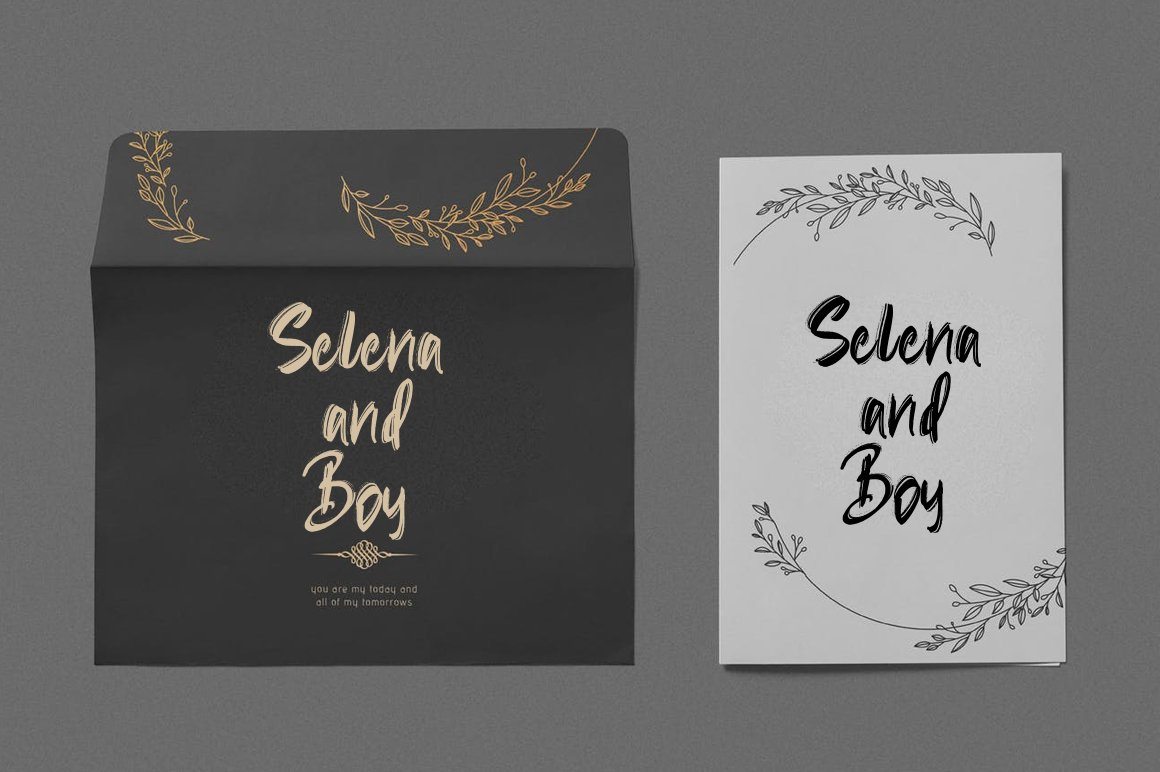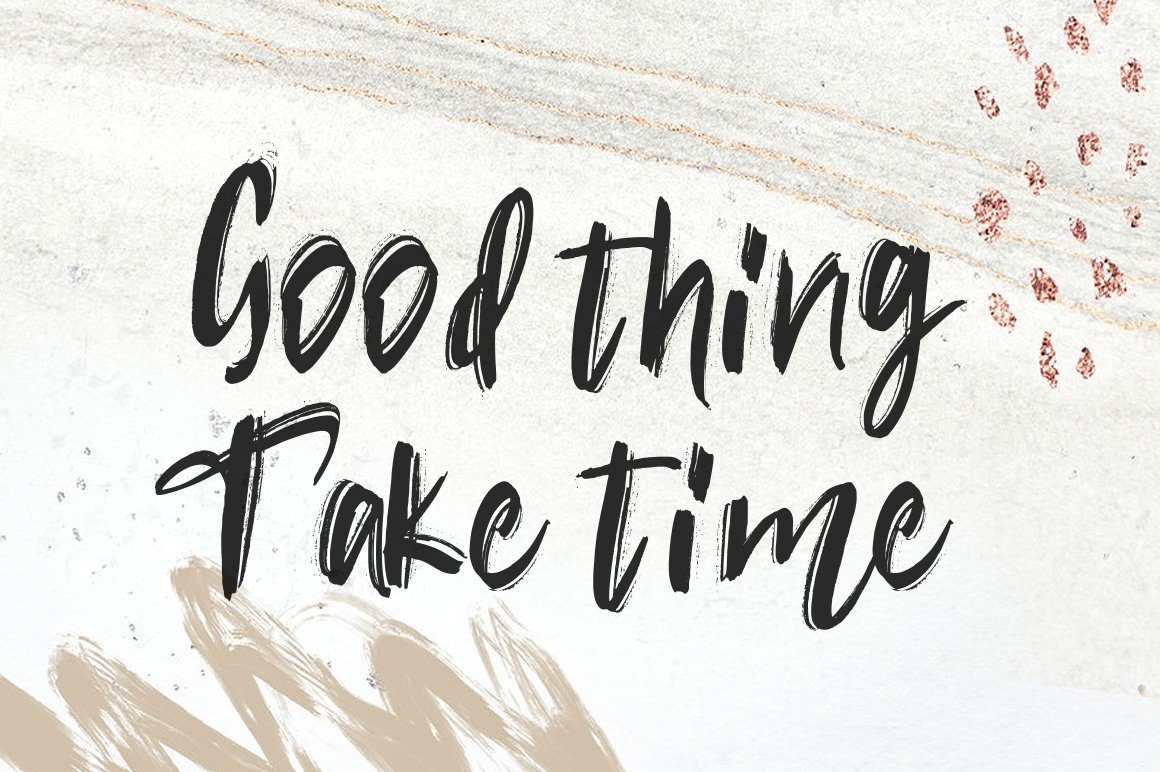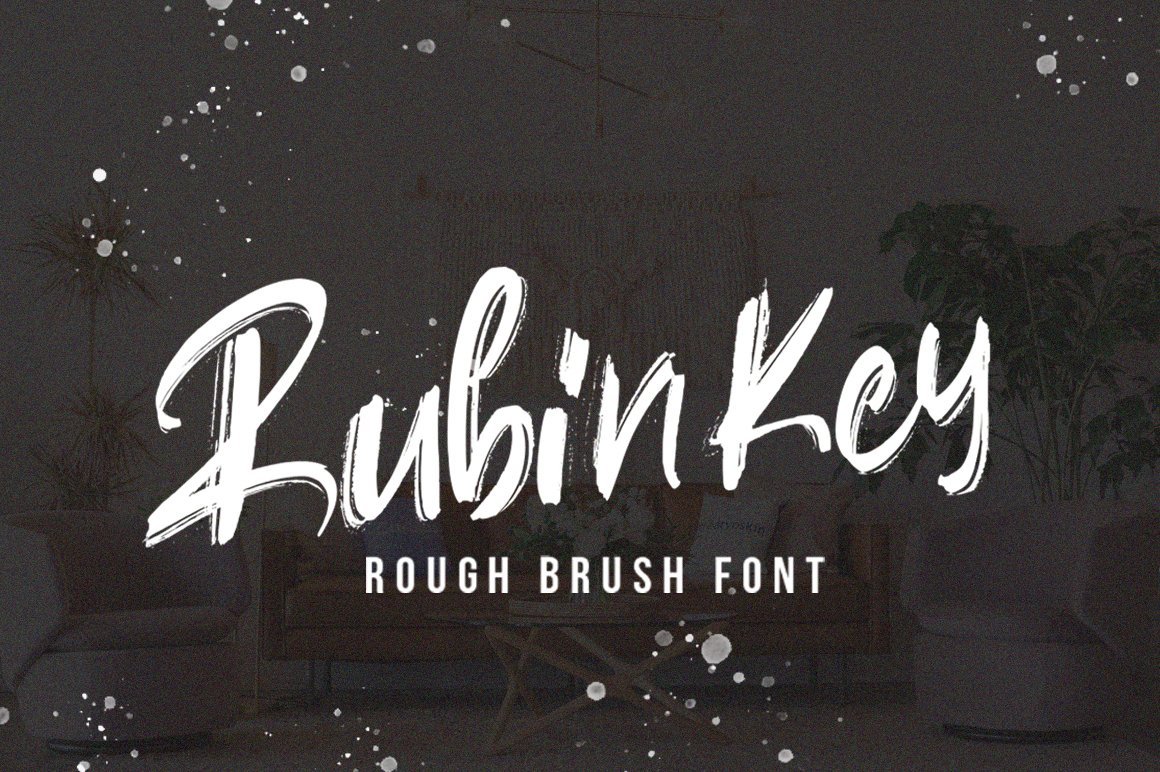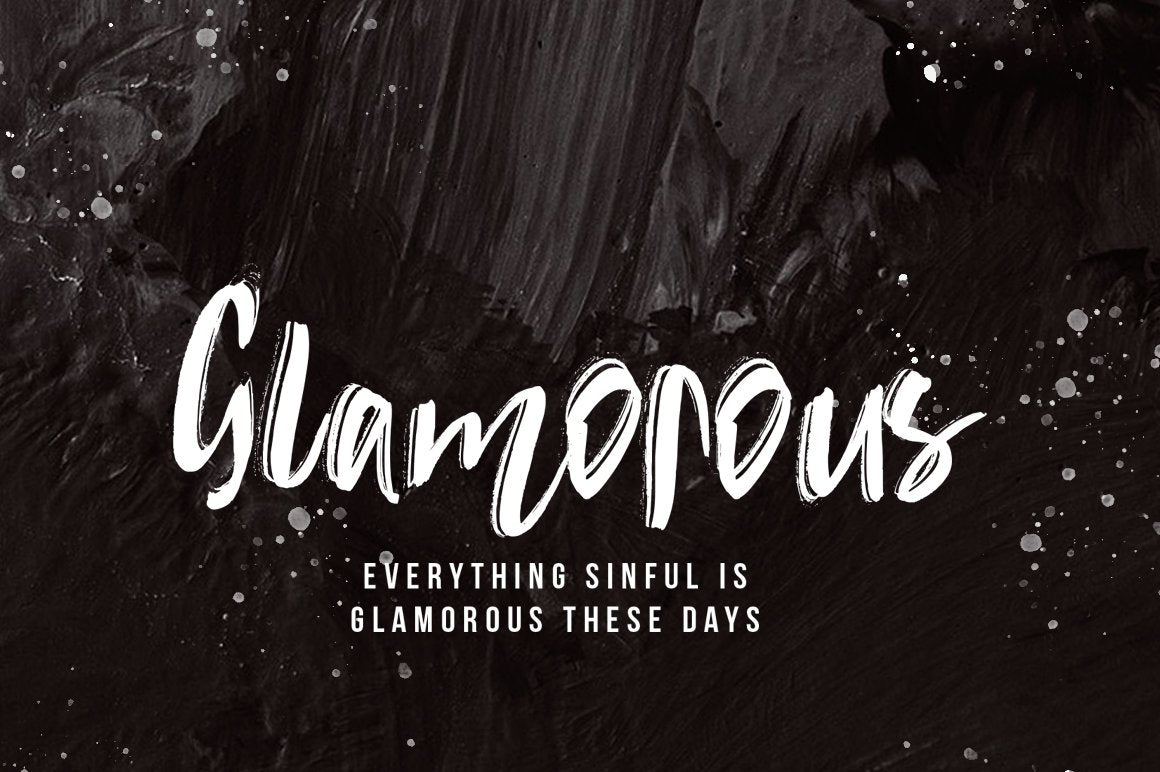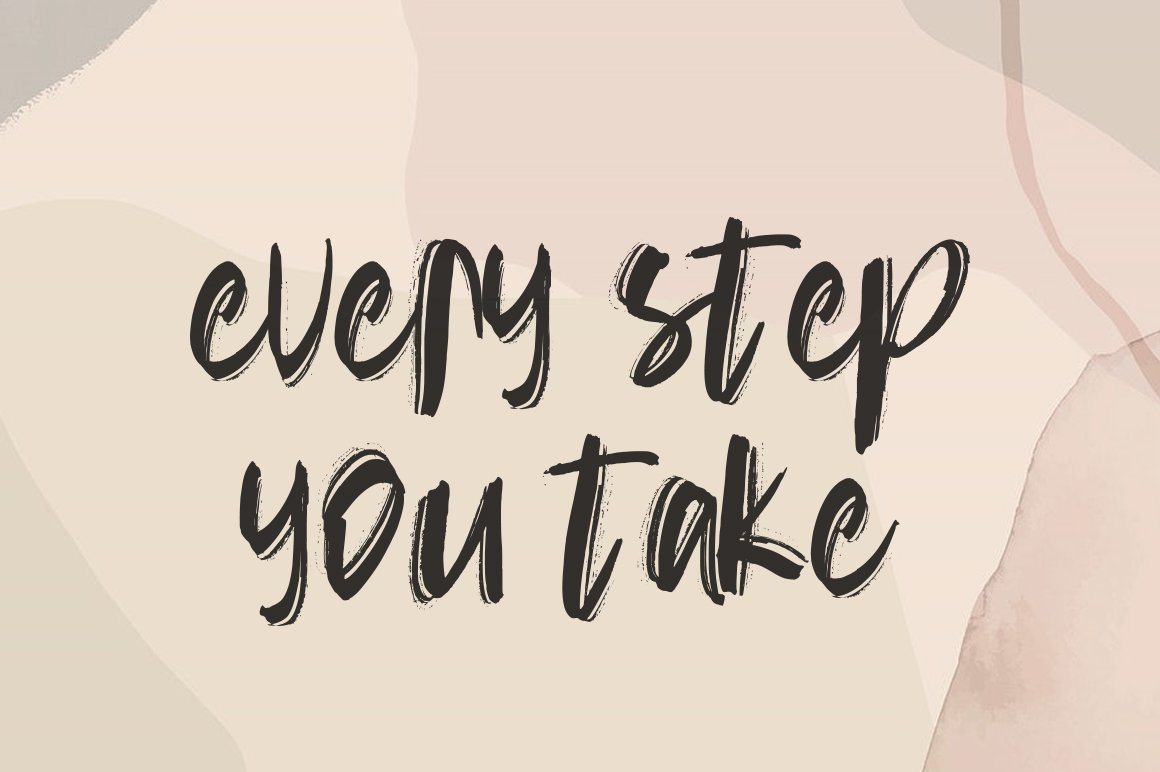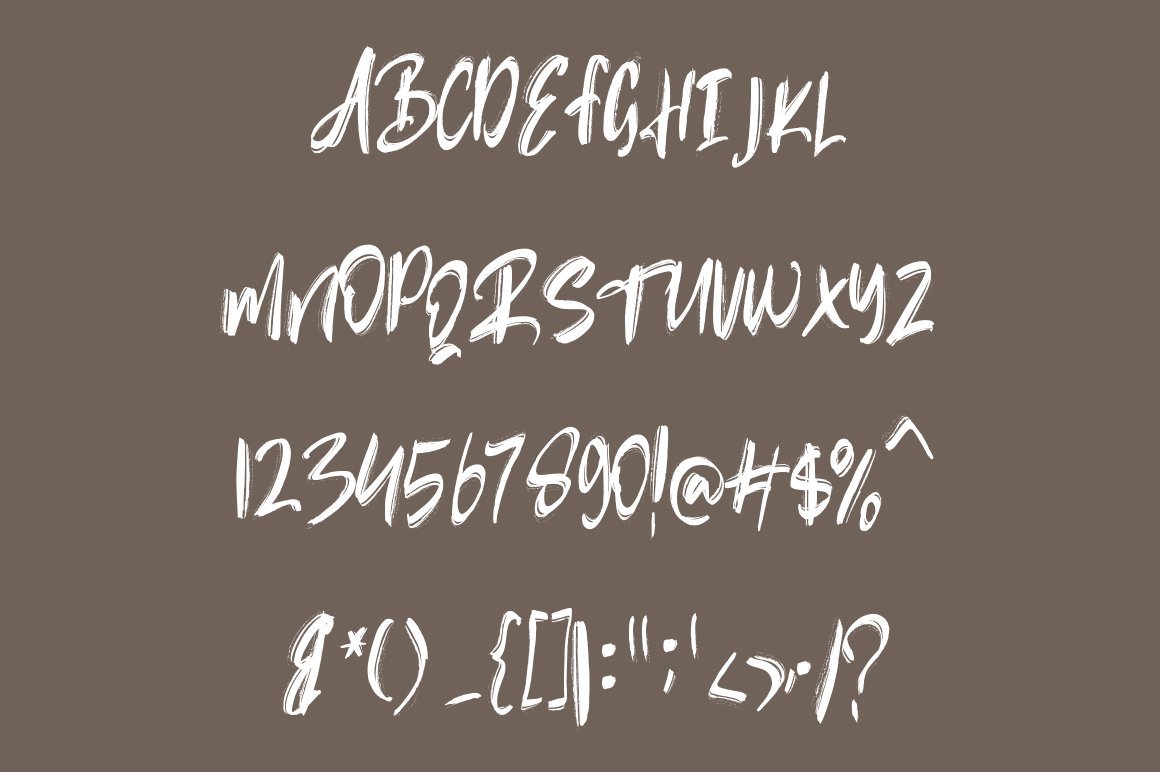
Rubin Key – Rough Font
Rubin Key is a beautiful handwritten font, created with the help of a unique brush pen. Fall in love with its incredibly versatile style and use it to create spectacular designs! You WIll Get : Zip file containing: either a OTF and TTF files Font Features : Web font file (.WOFF) Uppercase + Lowercase Letters Numbers + Punctuation Ligature Feature OpenType features Multilingual support Compatible with  Adobe Illustrator, Adobe Photoshop, Adobe Indesign, Word, Corel draw, inkscape Silhouette Studio, Cricut Design Space, Scan N Cut, and other cutting and design programs Any questions? feel free to send us a message. Have a great day !